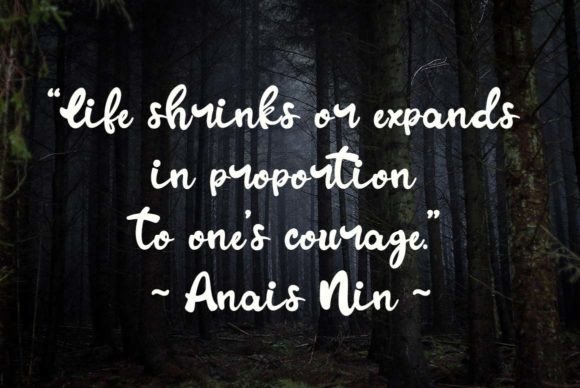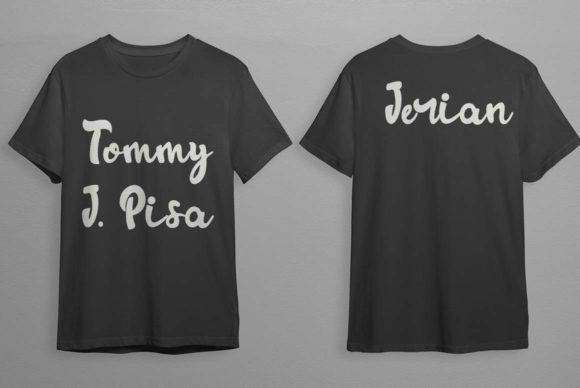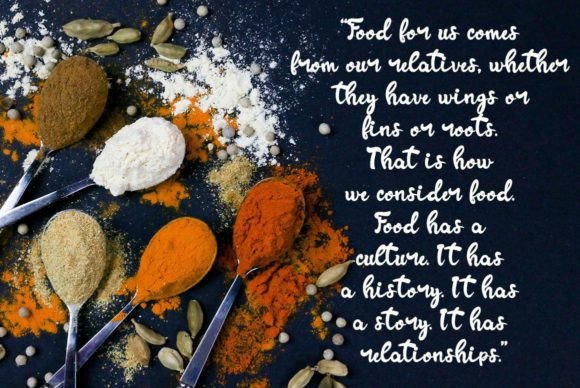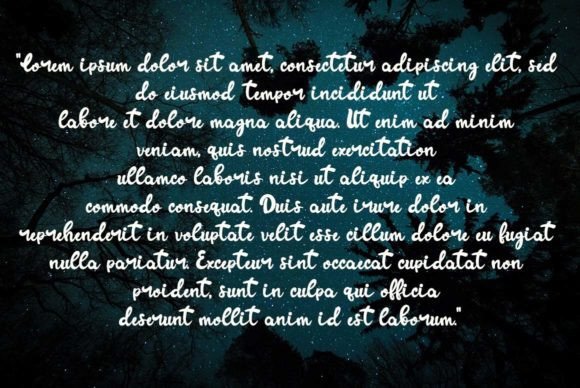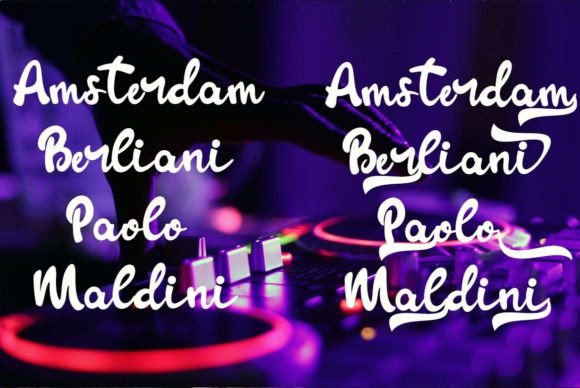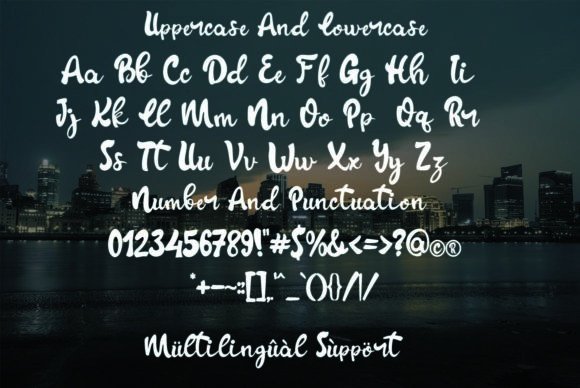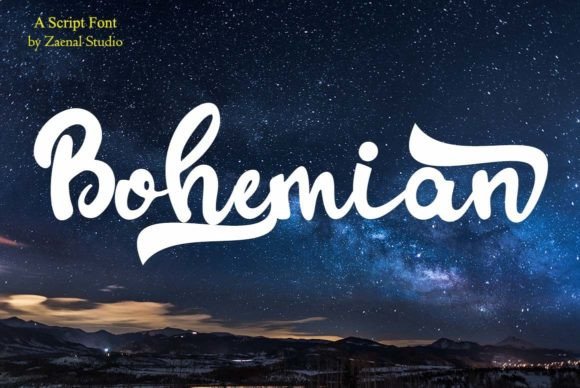
Introducing Bohemian Font: Elevate Your Designs with Elegance and Uniqueness
In the world of typography, fonts play a crucial role in conveying the tone and personality of a design. For designers and crafters looking to add a touch of sophistication and whimsy to their creations, the Bohemian Font is an excellent choice. This unique and elegant script font is perfect for a variety of applications, including invitations, business cards, vintage logos, branding, and logo designs.
The Charm of Bohemian Font
Bohemian Font is a beautiful handwritten font that exudes elegance and charm. Its distinctive style is characterized by flowing lines, intricate details, and a sense of playfulness. This font is ideal for designers who want to add a personal touch to their work and create a lasting impression on their audience. Whether you’re designing a wedding invitation, a business card, or a logo, Bohemian Font is sure to make your creation stand out.
One of the key benefits of Bohemian Font is its versatility. This font can be used in a wide range of design applications, from formal events to creative branding projects. Here are some ways you can use Bohemian Font to elevate your designs:
- Invitations: Create stunning wedding invitations, birthday party invites, or baby shower announcements that set the tone for a special occasion.
- Business Cards: Add a touch of elegance to your business cards and make a lasting impression on potential clients.
- Vintage Logos: Create unique and eye-catching logos that evoke a sense of nostalgia and sophistication.
- Branding: Use Bohemian Font to develop a consistent brand identity that reflects your values and personality.
- Logo Designs: Design memorable logos that capture the essence of your brand and leave a lasting impression on your audience.
Why Choose Bohemian Font?
With so many fonts available, why choose Bohemian Font? Here are a few reasons why this font stands out:
- Unique Style: Bohemian Font has a distinctive style that sets it apart from other fonts.
- Elegant and Sophisticated: This font exudes elegance and sophistication, making it perfect for high-end designs.
- Handwritten Charm: Bohemian Font has a handwritten charm that adds a personal touch to your designs.
- Easy to Read: Despite its intricate details, Bohemian Font is easy to read, making it perfect for body text and headlines.
Tips for Using Bohemian Font
To get the most out of Bohemian Font, here are a few tips to keep in mind:
- Use it Sparingly: Use Bohemian Font sparingly to create a sense of drama and emphasis.
- Pair it with Other Fonts: Pair Bohemian Font with other fonts to create a unique and visually appealing combination.
- Pay Attention to Kerning: Pay attention to kerning to ensure that your text is evenly spaced and visually appealing.
Bohemian Font is a unique and elegant script font that is perfect for designers and crafters looking to add a touch of sophistication and whimsy to their creations. With its distinctive style, versatility, and handwritten charm, this font is sure to make your designs stand out. Whether you’re designing invitations, business cards, vintage logos, branding, or logo designs, Bohemian Font is an excellent choice. So why wait? Add Bohemian Font to your design toolkit today and elevate your creations to the next level!